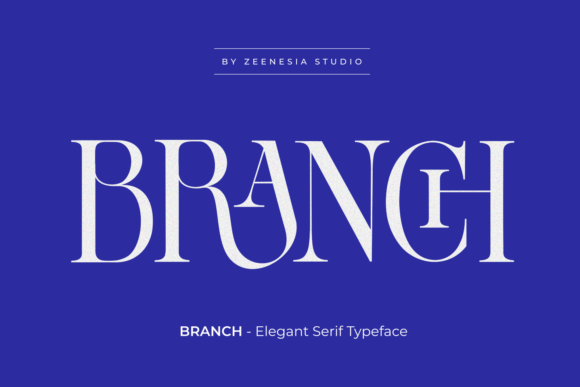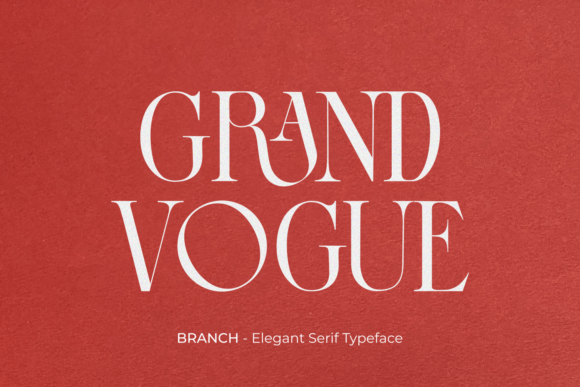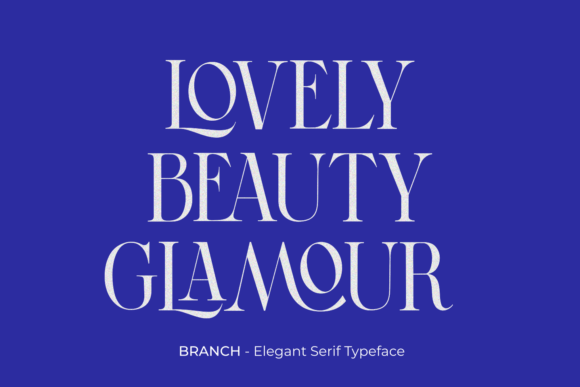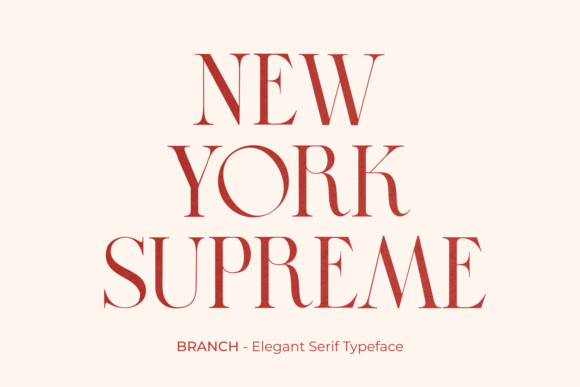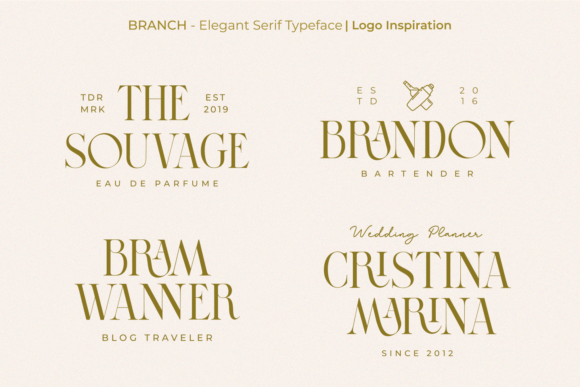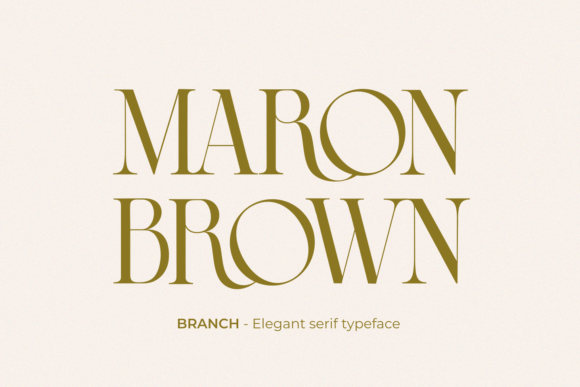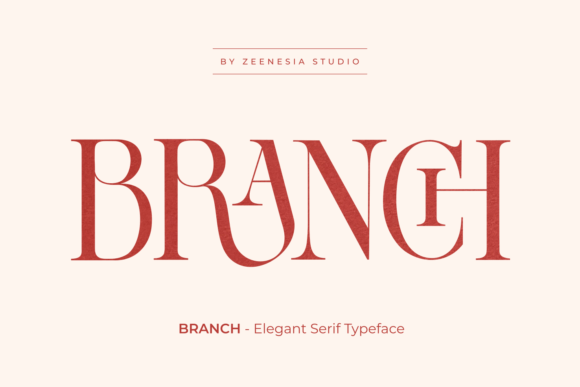
Introducing Branch Font: The Elegant Serif for Romantic Designs
Are you looking for a font that exudes elegance, beauty, and smoothness? Look no further than Branch Font, a stunning serif font designed to add a romantic and lovely touch to your designs. With its classic and sophisticated look, Branch Font is perfect for a variety of creative projects, from greeting cards and wedding invitations to posters, logotypes, and product branding.
The Characteristics of Branch Font
Branch Font is a carefully crafted serif font that boasts a range of desirable characteristics. Its elegant and refined design makes it ideal for projects that require a touch of sophistication and luxury. The font’s smooth lines and curves create a beautiful and harmonious visual effect, perfect for designs that aim to evoke a sense of romance and whimsy.
One of the standout features of Branch Font is its versatility. Whether you’re creating a wedding invitation, a poster, or a product label, this font is sure to impress. Its classic design ensures that it will never go out of style, making it a valuable addition to any designer’s font library.
What Makes Branch Font So Special?
So, what sets Branch Font apart from other serif fonts on the market? Here are just a few reasons why designers and crafters are falling in love with this beautiful font:
- Elegant and Refined Design: Branch Font features a sophisticated and elegant design that’s perfect for high-end projects.
- Smooth Lines and Curves: The font’s smooth lines and curves create a beautiful and harmonious visual effect.
- Romantic and Lovely Look: Branch Font is designed to evoke a sense of romance and whimsy, making it perfect for wedding invitations, greeting cards, and other special occasions.
- Versatile and Flexible: This font can be used for a wide range of projects, from posters and logotypes to product branding and packaging.
Using Branch Font in Your Designs
Branch Font is incredibly easy to use and can be incorporated into a variety of design projects. Here are just a few ideas to get you started:
- Greeting Cards: Add a touch of elegance and sophistication to your greeting cards with Branch Font.
- Wedding Invitations: Make your wedding invitations truly special with this beautiful and romantic font.
- Posters: Create stunning posters that showcase your brand’s personality and style with Branch Font.
- Logotypes: Use Branch Font to create a custom logotype that reflects your brand’s values and aesthetic.
- Product Branding: Add a touch of luxury and sophistication to your product branding with this elegant serif font.
Tips and Tricks for Working with Branch Font
Here are a few tips and tricks to help you get the most out of Branch Font:
- Experiment with Font Sizes: Try out different font sizes to see how Branch Font looks in various contexts.
- Play with Color: Experiment with different colors and color combinations to find the perfect look for your design.
- Mix and Match with Other Fonts: Try pairing Branch Font with other fonts to create a unique and interesting visual effect.
In conclusion, Branch Font is a stunning serif font that’s perfect for designers and crafters looking to add a touch of elegance and sophistication to their designs. With its romantic and lovely look, versatile design, and wide range of uses, this font is sure to become a favorite in your font library. So why wait? Download Branch Font today and start creating beautiful, elegant designs that will leave a lasting impression.